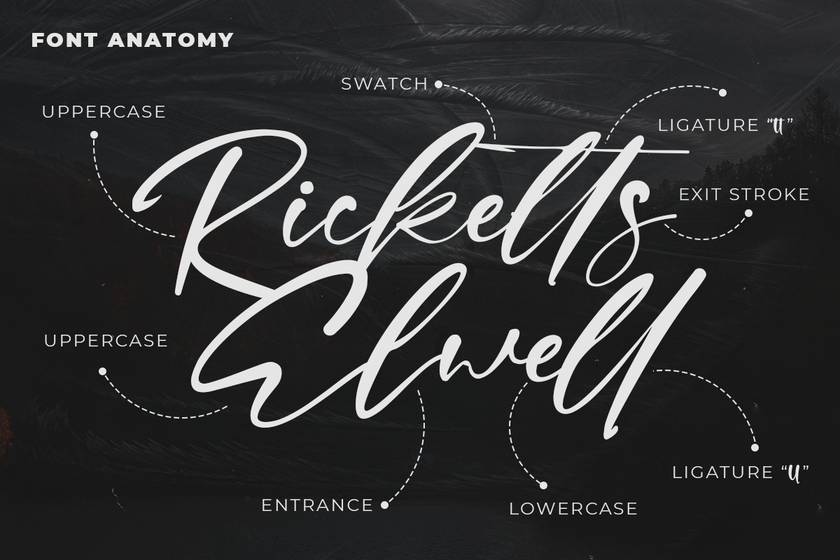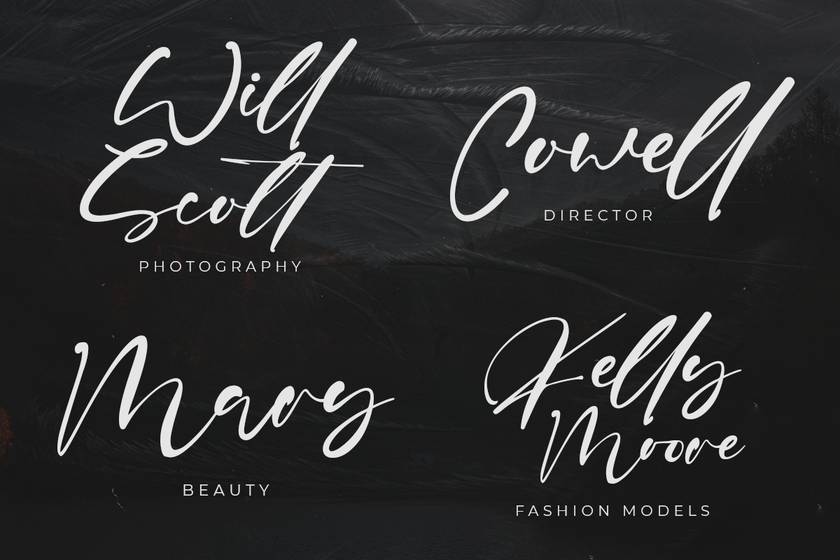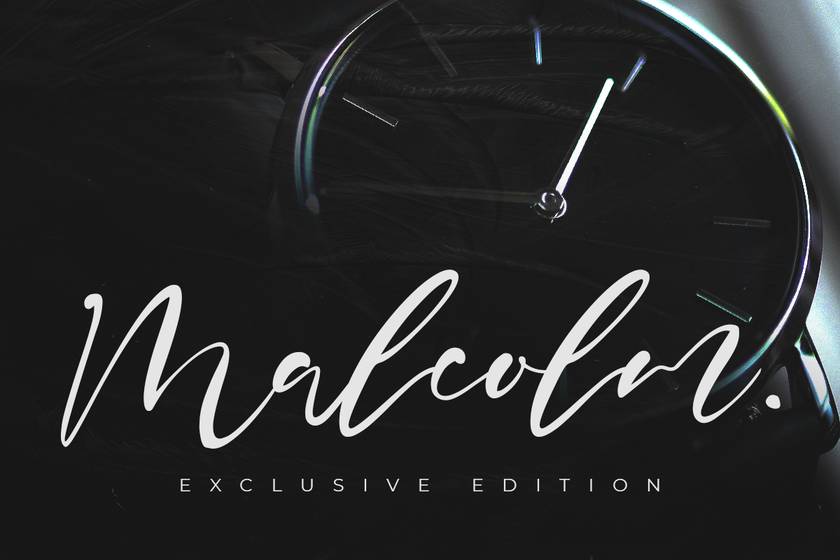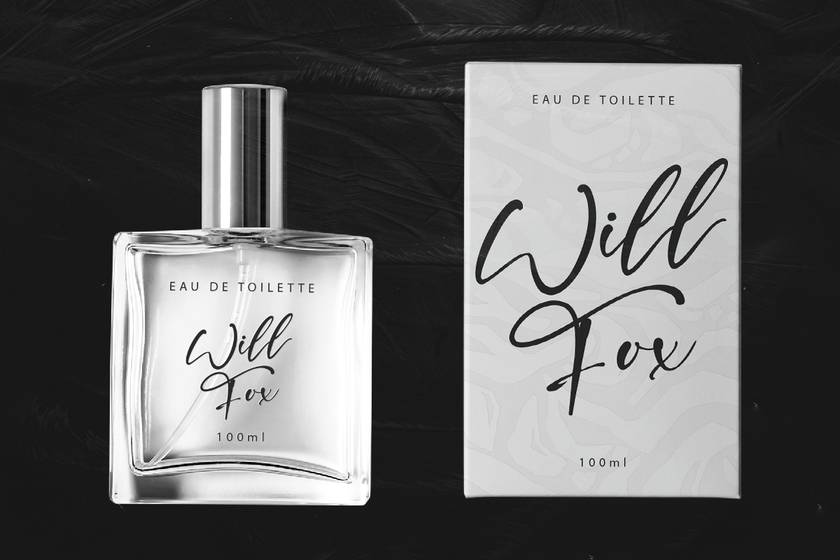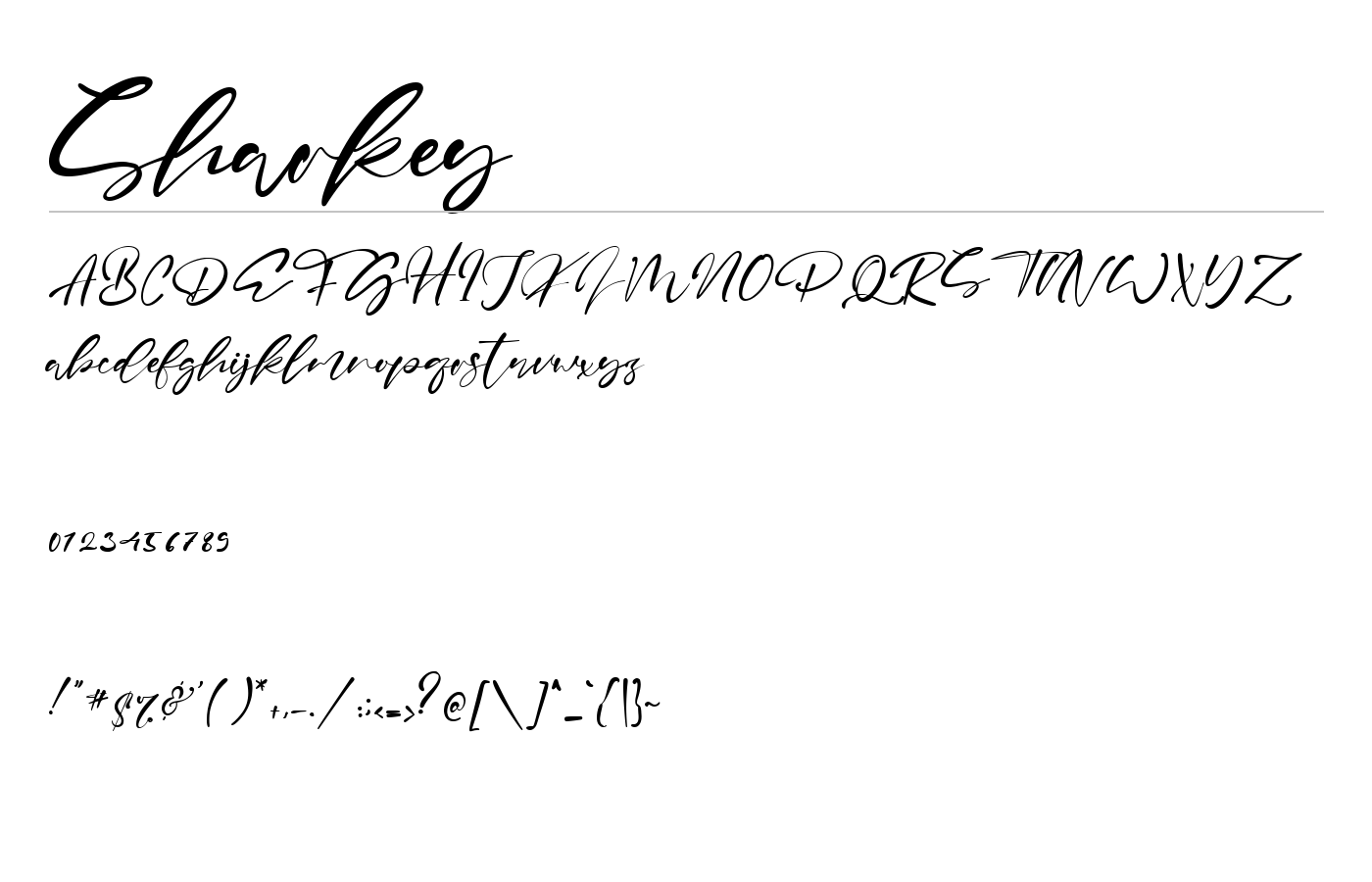
Sharkey is a stylish, modern script font with elegant, flowing strokes that give it a handwritten, personal touch. Its light to medium weight and tall, narrow letterforms make it perfect for sophisticated branding, invitations, and logos where a graceful and artistic feel is desired. This font works beautifully in contexts that seek to convey creativity, elegance, and an intimate atmosphere.
Sharkey Font
About Sharkey Font
| Font family | Sharkey Font |